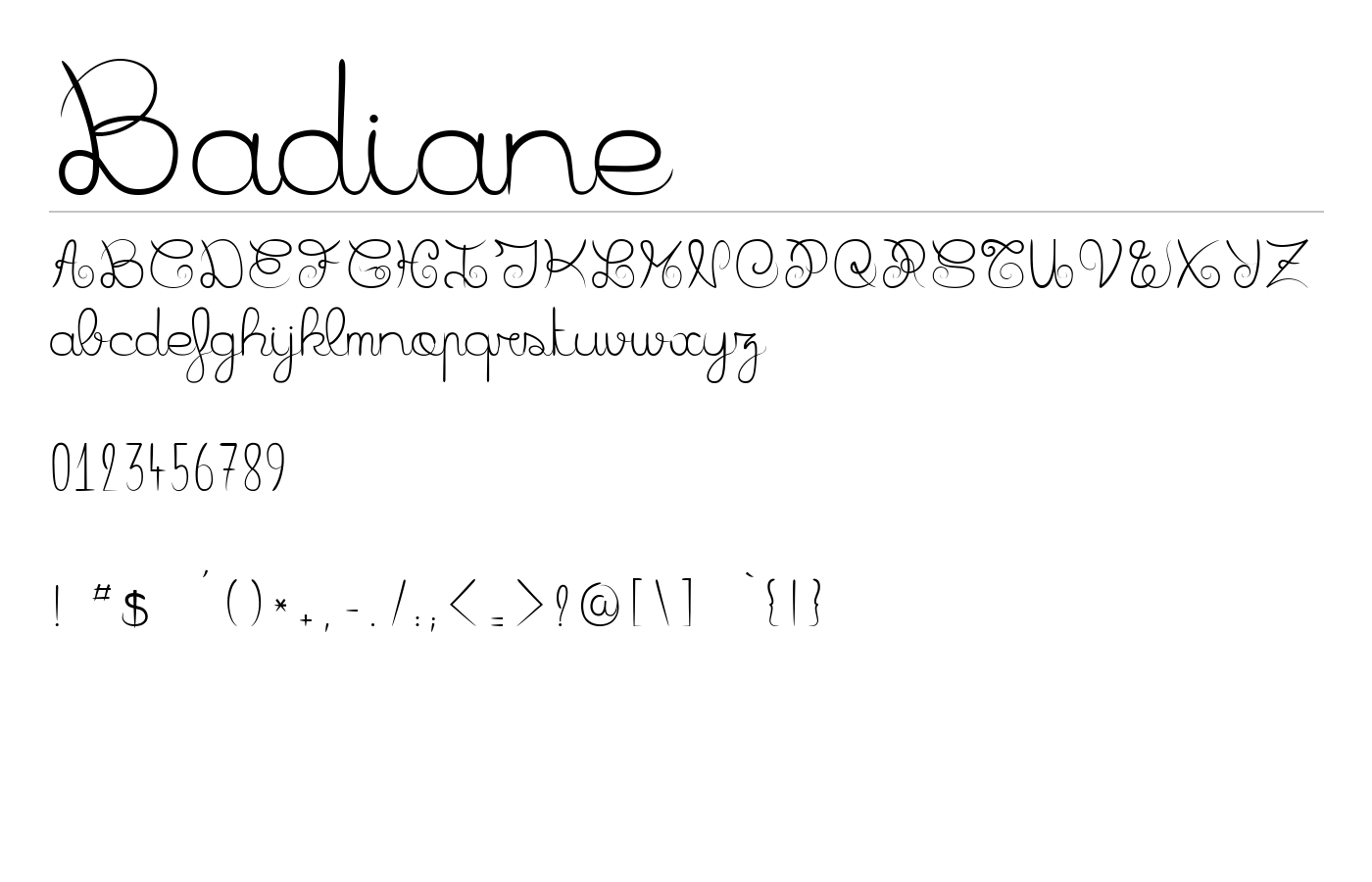
Badiane is a delicate, whimsical script font with a light weight and tall, narrow letterforms that combine both playful curls and elegant loops. Its fine lines and decorative flourishes give it a charming, artistic personality perfect for creative designs, making it ideal for invitations, branding, and headlines where a touch of sophistication and uniqueness is desired. This font shines in projects that need an expressive, hand-crafted feel while maintaining readability.
Badiane Font
About Badiane Font
| Font family | Badiane Font |
| Designer | dcoxy Medina Gregory |